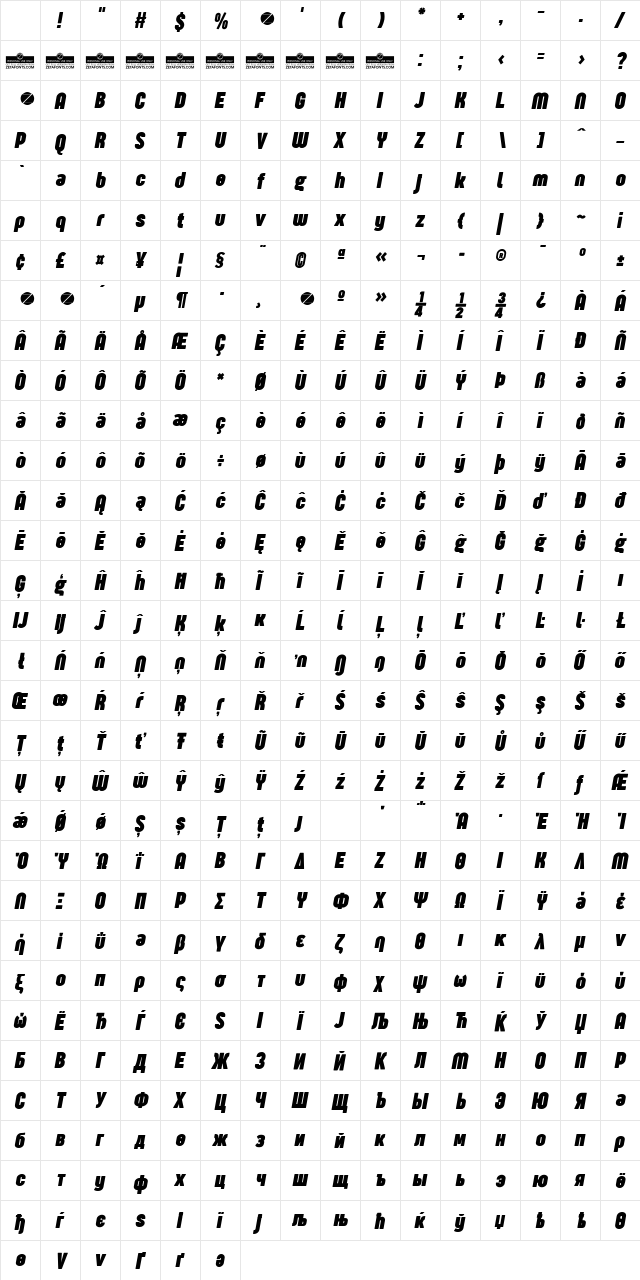
Complete Sugo Pro Display Trial Bold Italic glyph index. Displaying only characters natively supported by Sugo Pro Display Trial Bold Italic font.
Sugo Pro Display Trial is built around its visual character rather than neutral utility - its distinctive forms are designed to make an impression at display sizes. The slanted form adds forward momentum and visual energy. Its bold stroke weight gives it real presence on the page.
Font Pairing: Pair with a clean neutral sans-serif for body copy to let Sugo Pro Display Trial's character lead without overwhelming the composition.
Pro Tip: Use Sugo Pro Display Trial exclusively at display sizes - it was designed to be seen, not read at length. Let a neutral companion handle body copy.